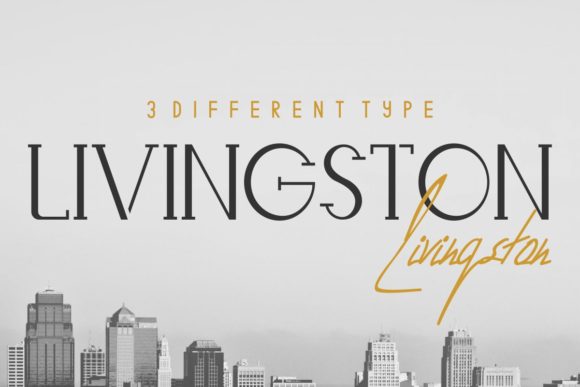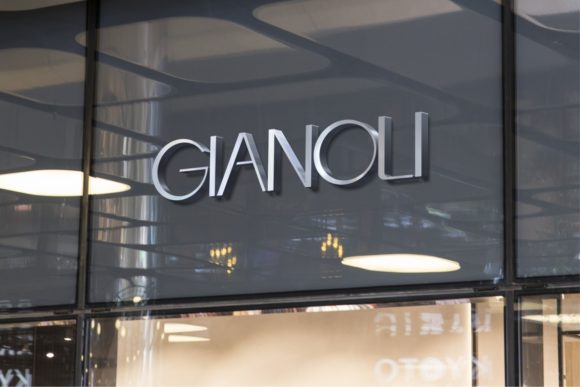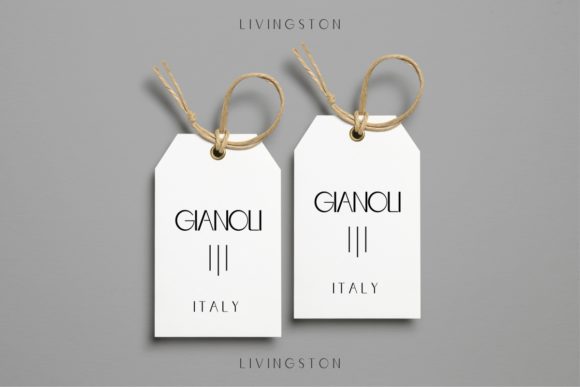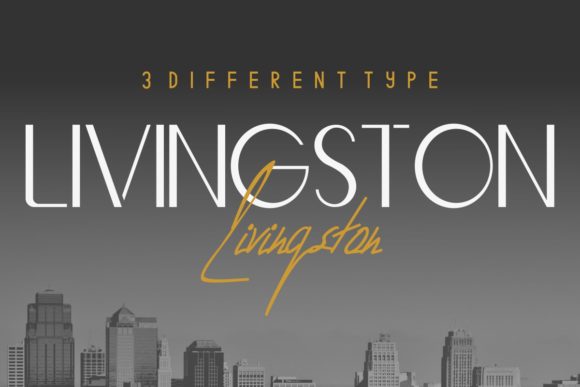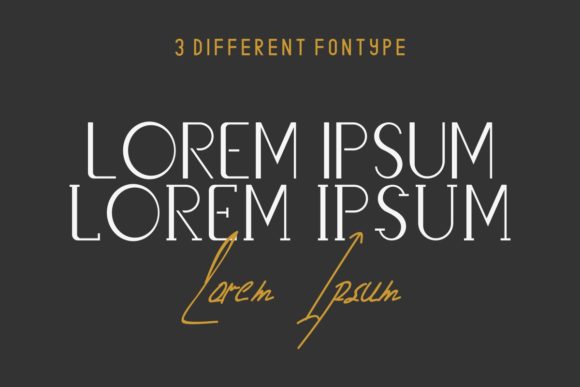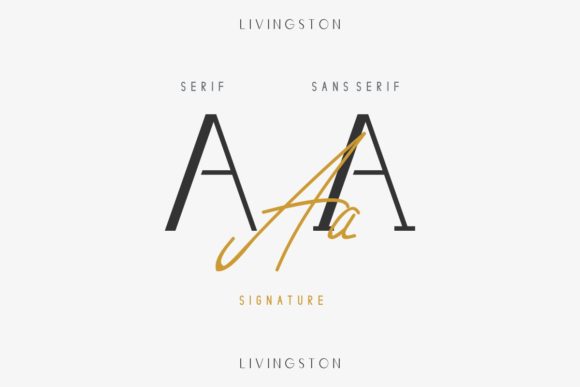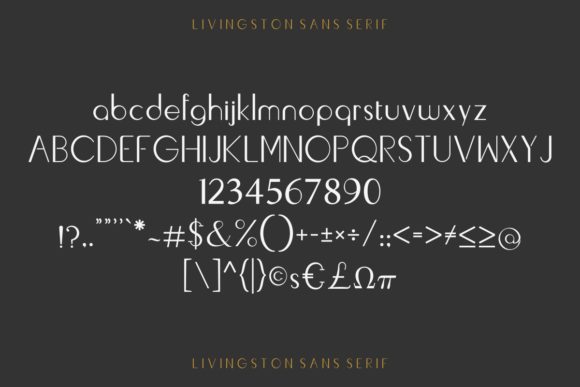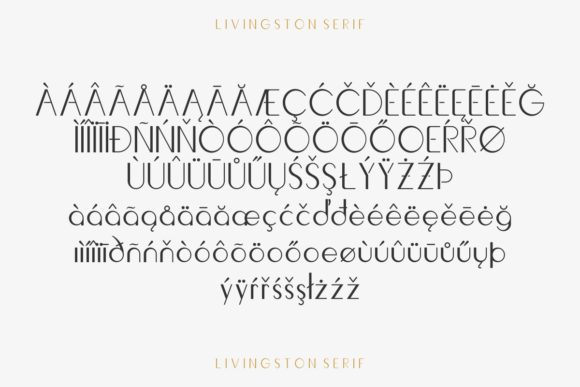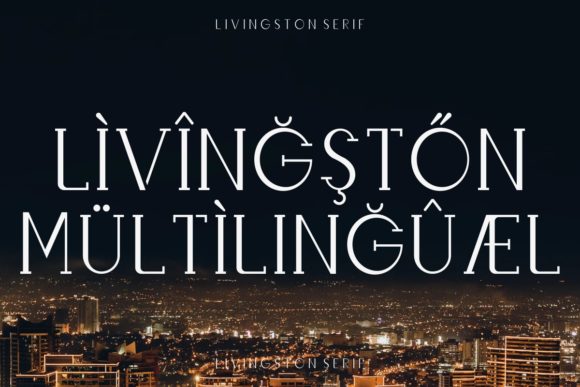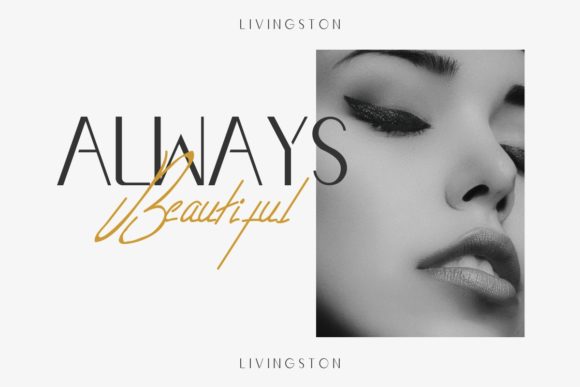
Livingston Font
About Livingston Font
Livingston is a fantastic font trio that features a a stunning serif, sans and script font. When combined, these three fonts will turn any design idea into a true stand out!